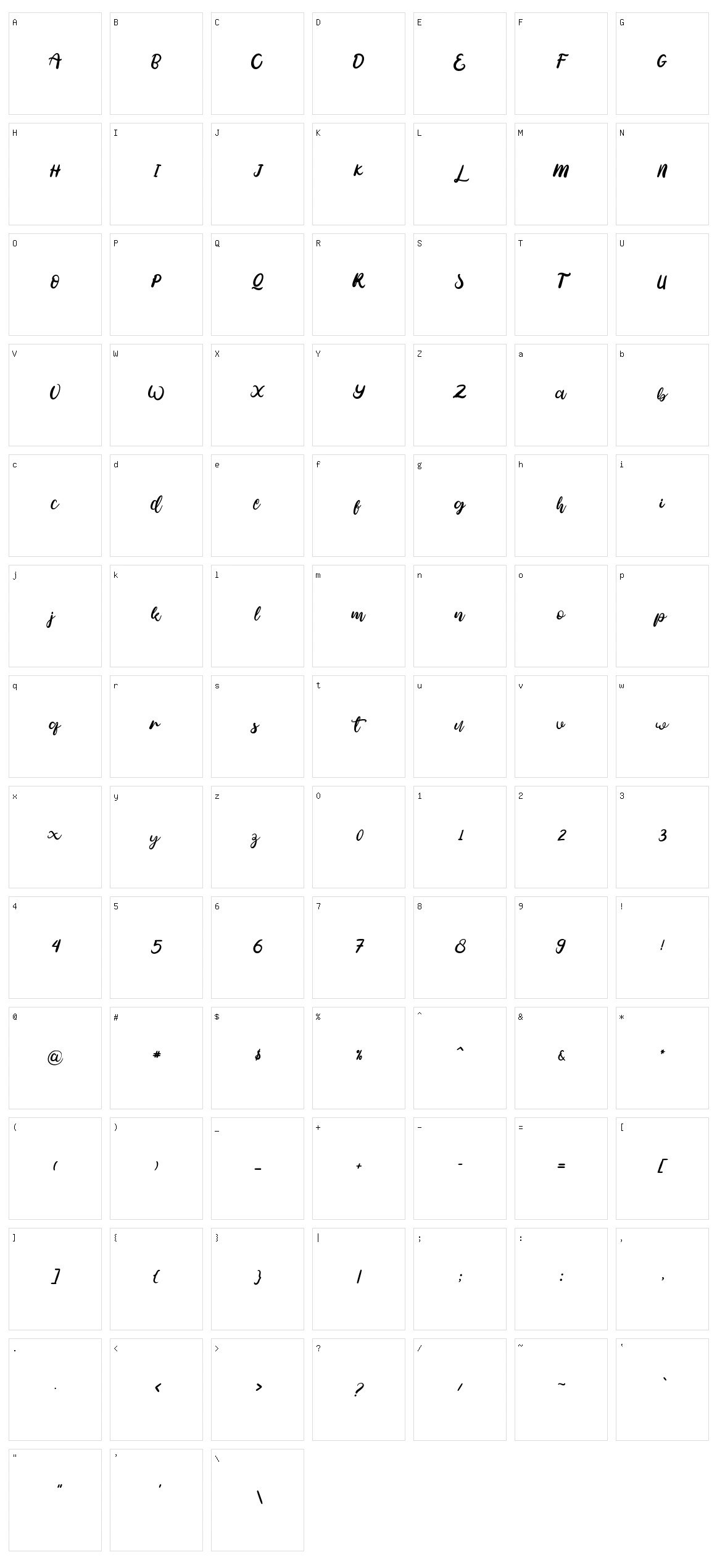
The free font I Love January is carefully designed by SSI.Scraps, showcasing a thoughtful balance of creativity and usability and falls under the Script font style. When you download the ZIP file, it contains only 209.47 KB of font files, making it lightweight and quick to download. Please review the license details below to understand permitted usage and distribution rights. If license information is not available, we recommend using this font for personal projects only or contacting the author directly for commercial usage permissions.